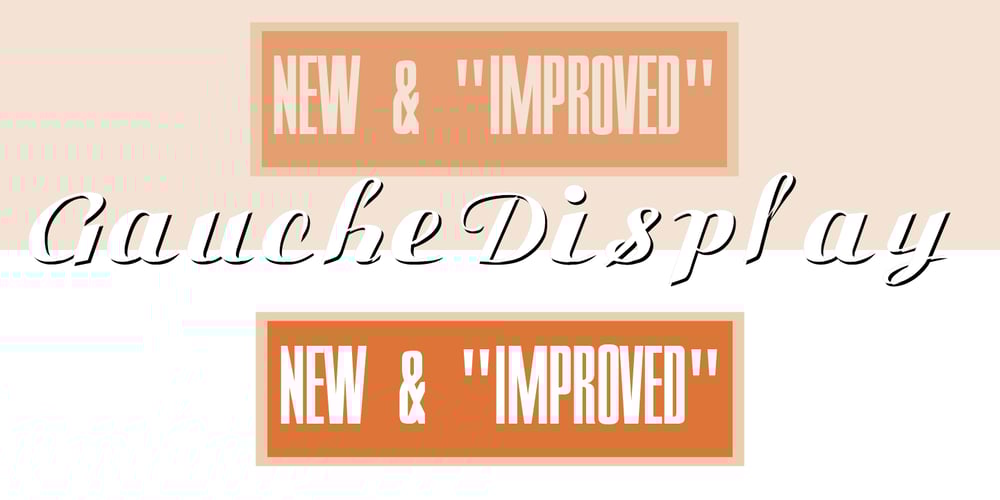
Gauche Display Font Family was designed by Rob Barba and published by Megami Studios. Gauche Display contains 3 styles and family package options. Gauche Display is a “tasteless and awkward” script font for those who don’t exactly want sophistication in their typographic script usage. Er, um, uh…”inspired” by several script fonts (all of which look much, much prettier), you can’t take your eyes off this font, much in the same way you can’t stop looking at a trainwreck. In other words, it sucks on purpose and lives up (or down, take your pick) to its name.